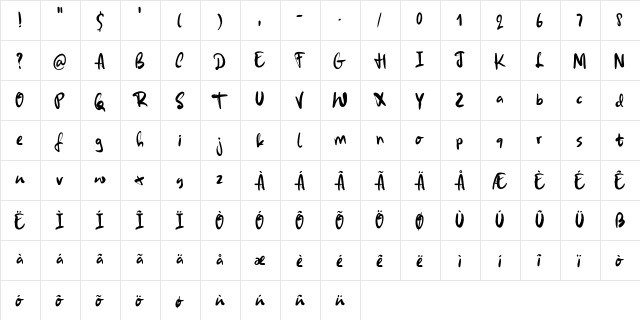
Kingsmead Script DEMO Regular
Design Context for Kingsmead Script DEMO Typeface
Kingsmead Script DEMO brings a calligraphic fluidity to the page — its connecting strokes and expressive curves give it an unmistakably human quality.
Font Pairing: Combine Kingsmead Script DEMO with a simple geometric sans for maximum contrast — the tension between flowing curves and clean structure is a classic typographic pairing.
Pro Tip: Use Kingsmead Script DEMO for short runs of text — names, titles, or taglines. Extended body copy in script faces tires the eye quickly.